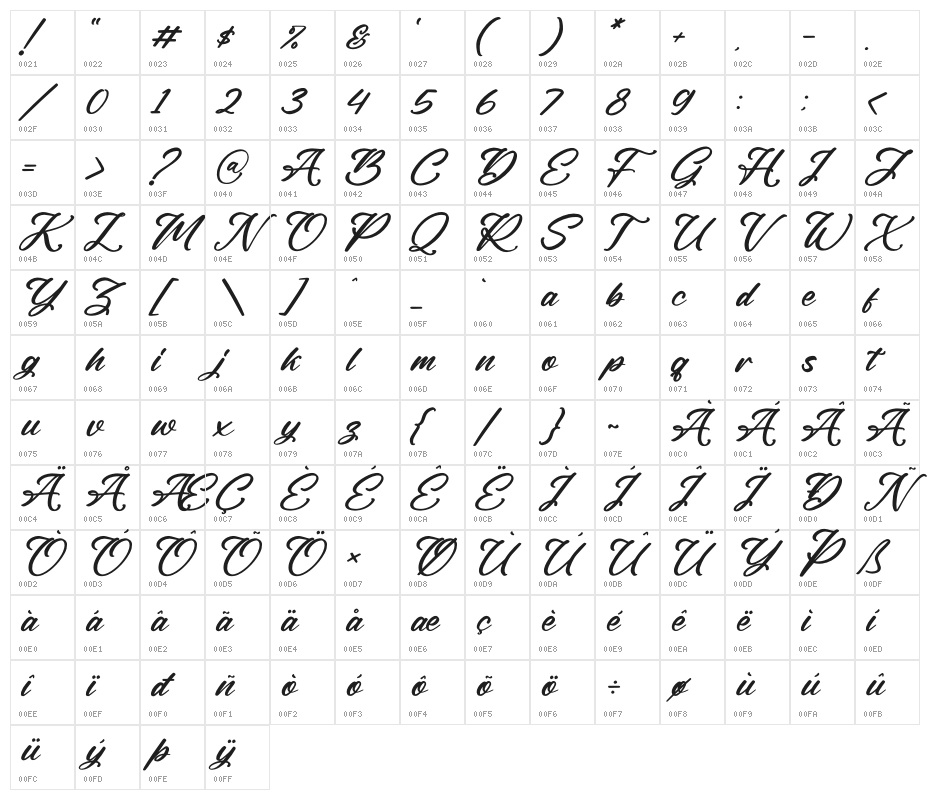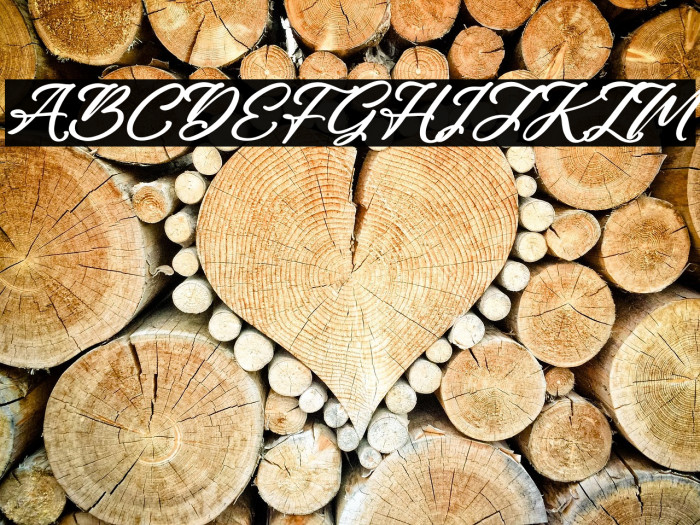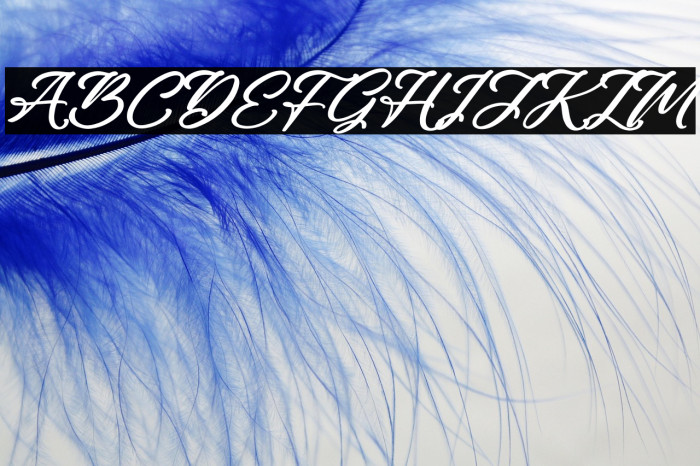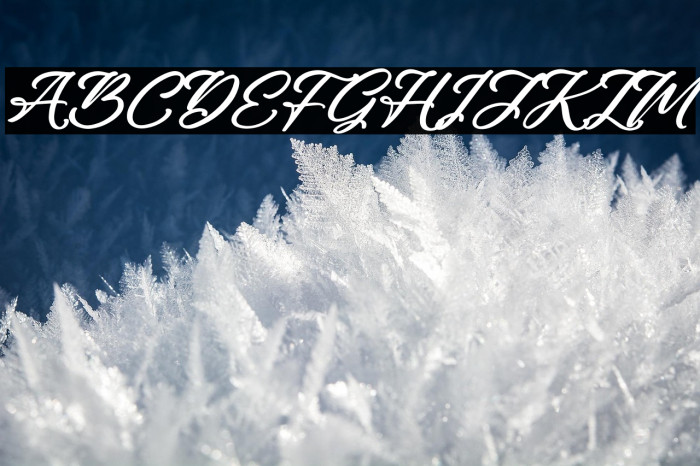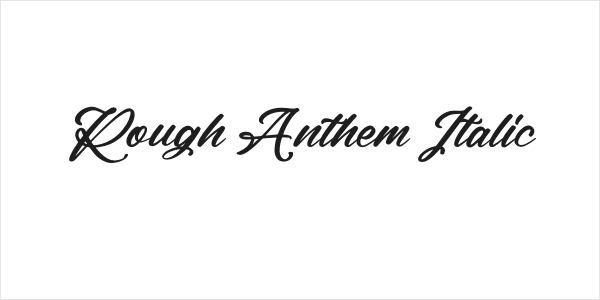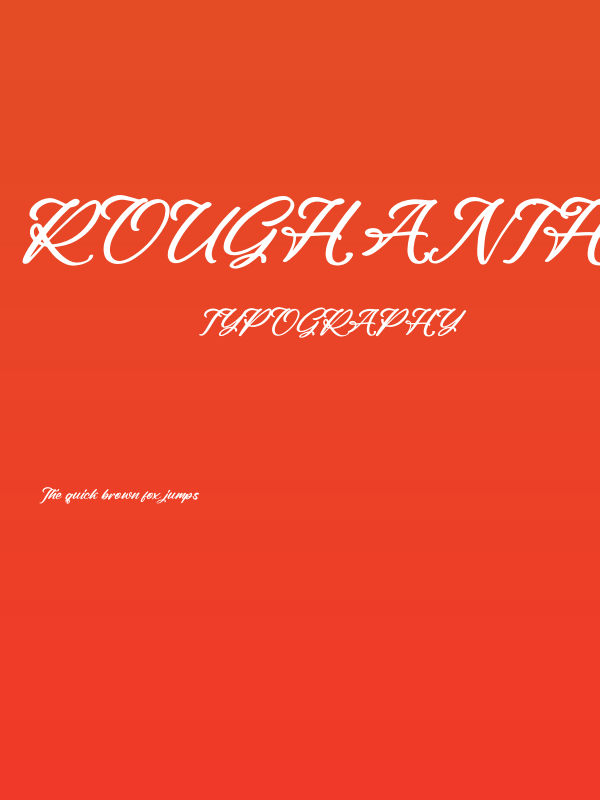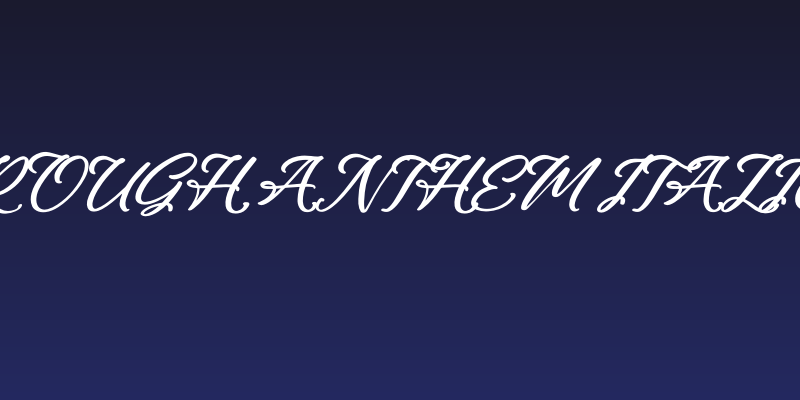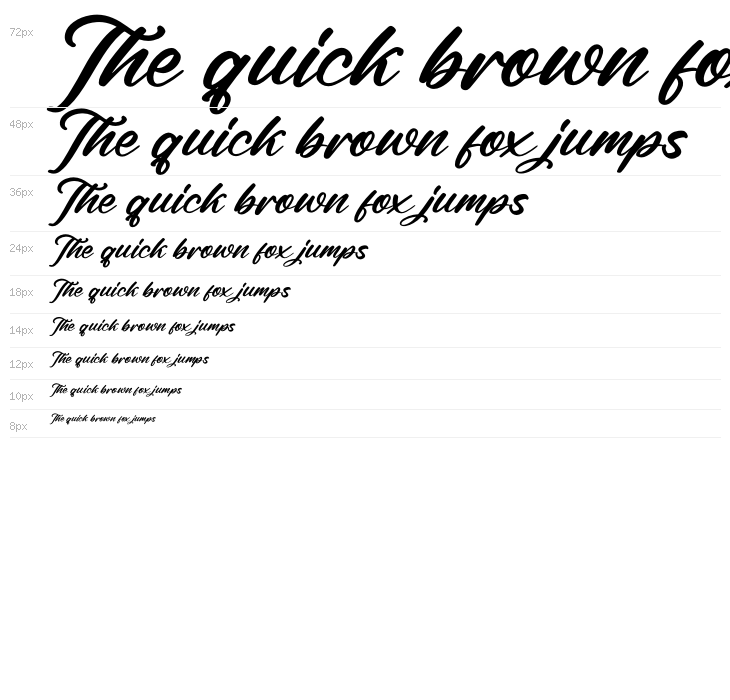
Rough Anthem Italic Font
Rough Anthem Italic Description
This font features a dynamic and flowing script style, characterized by its elegant and cursive letterforms. The uppercase letters are bold and sweeping, with dramatic flourishes that give a sense of movement and grace. The lowercase letters maintain a consistent flow, with smooth connections between each character, enhancing the script's fluidity. The numerals are equally stylized, matching the overall aesthetic with their curvaceous and expressive forms. Special characters are integrated seamlessly, maintaining the font's cohesive and artistic appearance. This font exudes a sense of sophistication and creativity, making it ideal for projects that require a touch of elegance and flair.